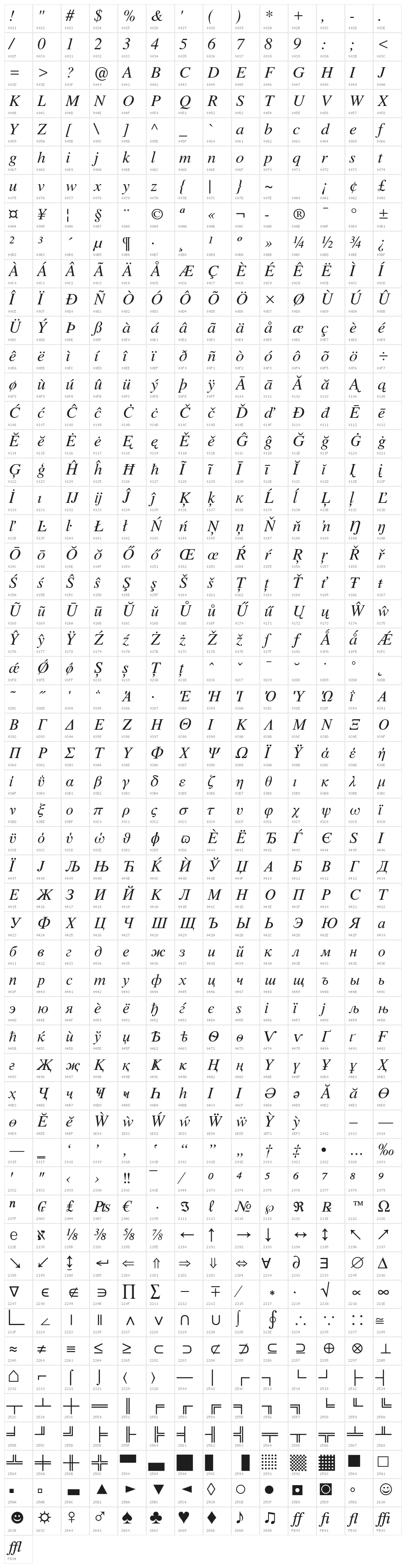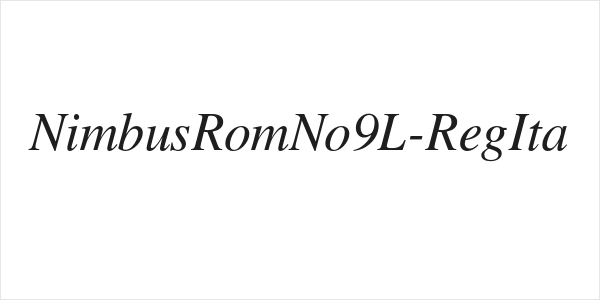
NimbusRomNo9L-RegIta Font
NimbusRomNo9L-RegIta Description
This font features a classic serif style with elegant, flowing lines and a slight slant, giving it an italicized appearance. The characters are well-proportioned, with a moderate contrast between thick and thin strokes, enhancing readability while maintaining a sophisticated look. The uppercase letters are stately and balanced, while the lowercase letters have a graceful, cursive-like quality. The numerals are clear and consistent with the overall style, and the special characters are designed to complement the text seamlessly. This font exudes a timeless elegance, making it suitable for a variety of formal and professional applications.